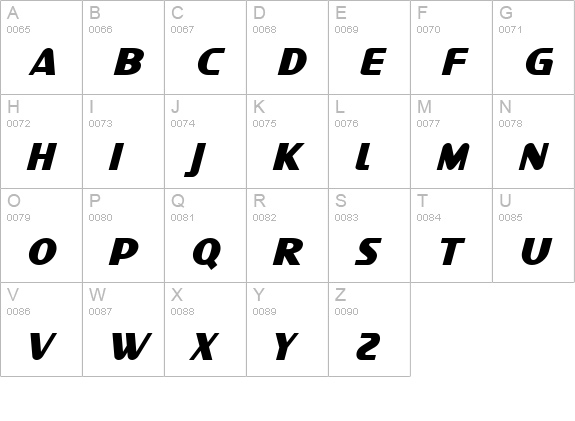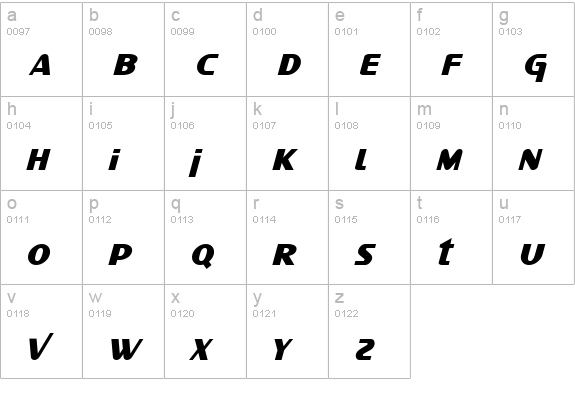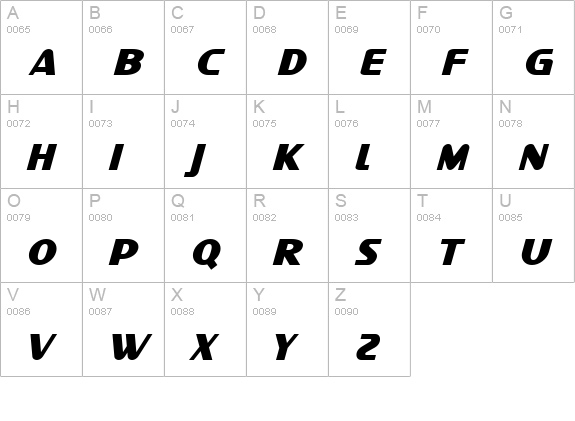
SF Intellivised Italic is a distinctive, italic variant in the SF typeface family \xE2\x80\x94 well suited to design and typography projects.
SF Intellivised Italic font is a modern and sleek typeface that combines intelligence and sophistication. Its italicized style adds a touch of elegance and flair to any design project, making it perfect for creating eye-catching headlines, stylish logos, or captivating advertisements. This font is not only visually appealing but also highly versatile. Its clean and legible letterforms make it suitable for a wide range of applications, from web design and branding to print media and product packaging. Whether you're working on a corporate presentation or a personal creative project, SF Intellivised Italic font will effortlessly elevate your design to a whole new level. But what sets SF Intellivised Italic font apart is not just its remarkable aesthetics. It is also available for free download at FontsMarket.com. Yes, you read that right – this exceptional font can be yours without any cost. FontsMarket.com is a renowned platform that offers an extensive collection of high-quality fonts, and SF Intellivised Italic font is one of its prized offerings. Downloading SF Intellivised Italic font from FontsMarket.com is a breeze. With just a few clicks, you can have this stunning typeface at your fingertips, ready to be used in your next creative endeavor. Whether you're a professional designer or a hobbyist, this free font is a valuable addition to your toolkit. So why wait? Unleash your creativity and enhance your design projects with the captivating SF Intellivised Italic font. Download it for free at FontsMarket.com today and experience the power of this exceptional typeface.